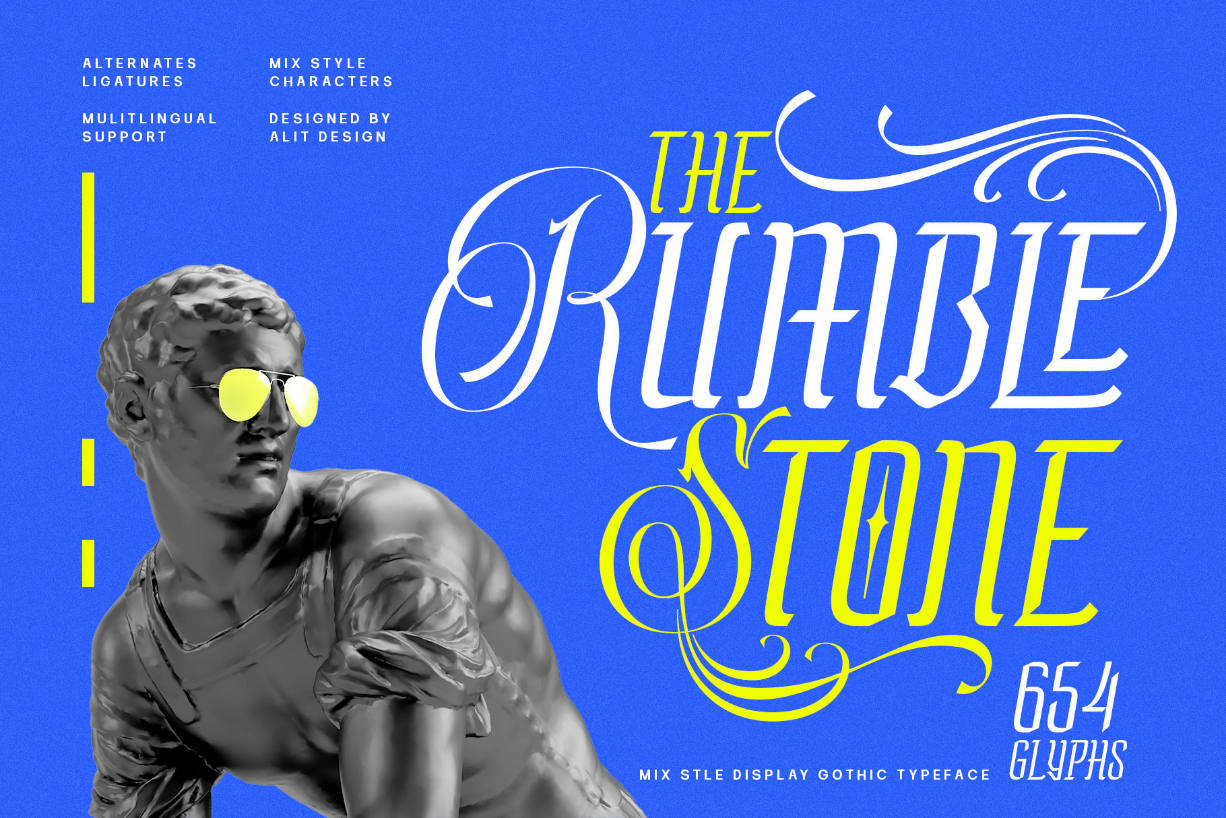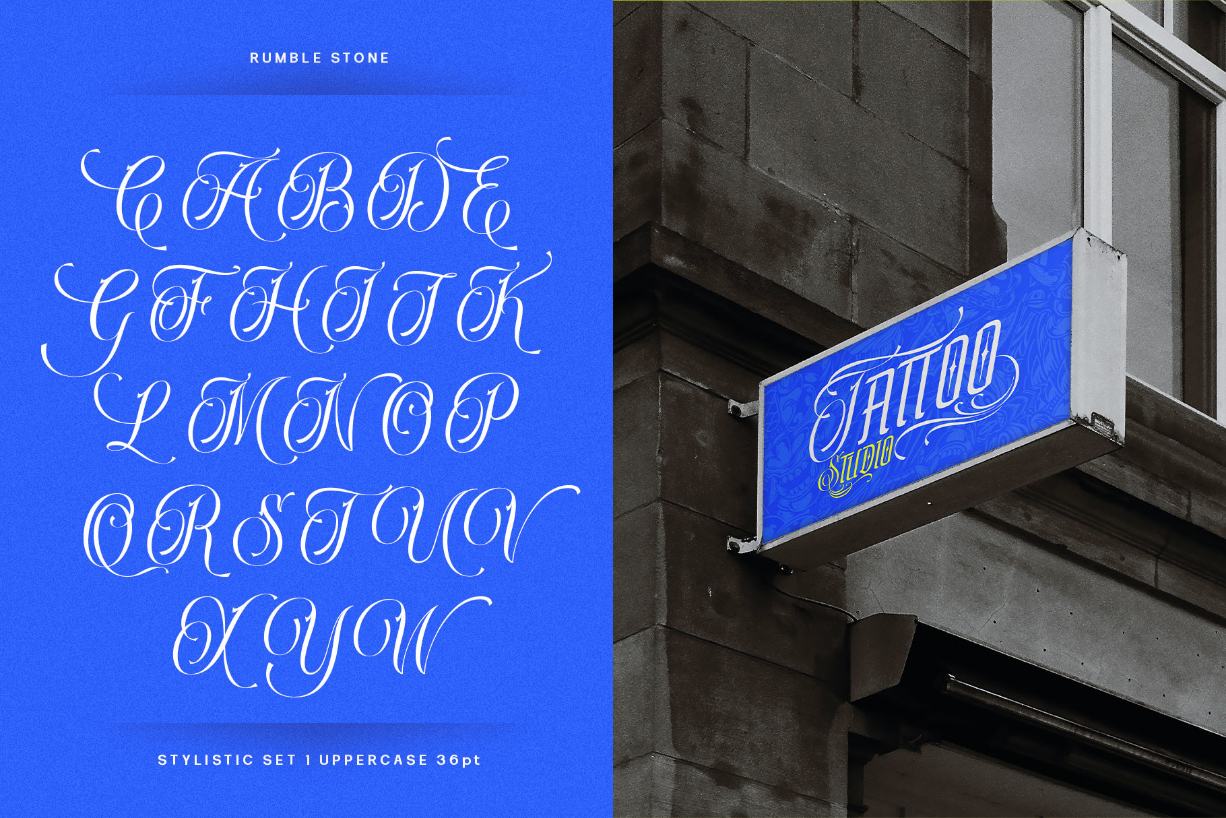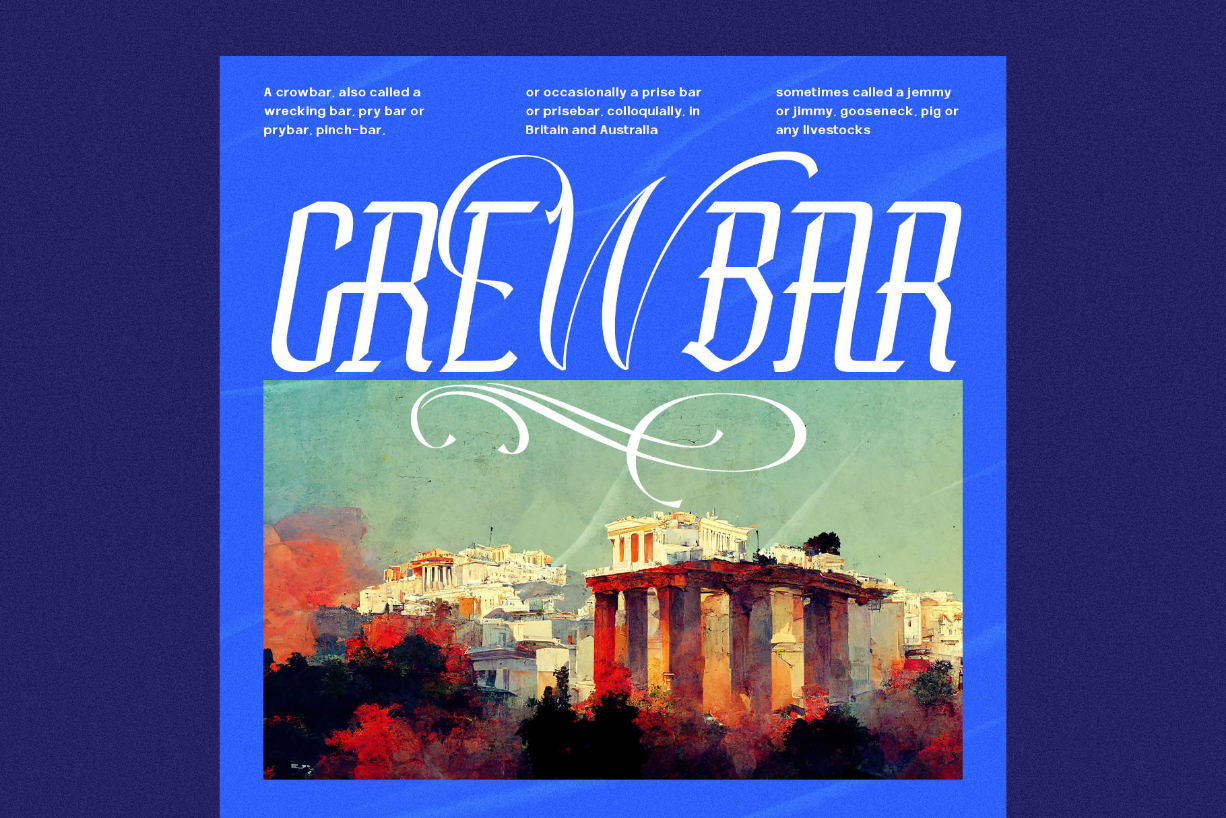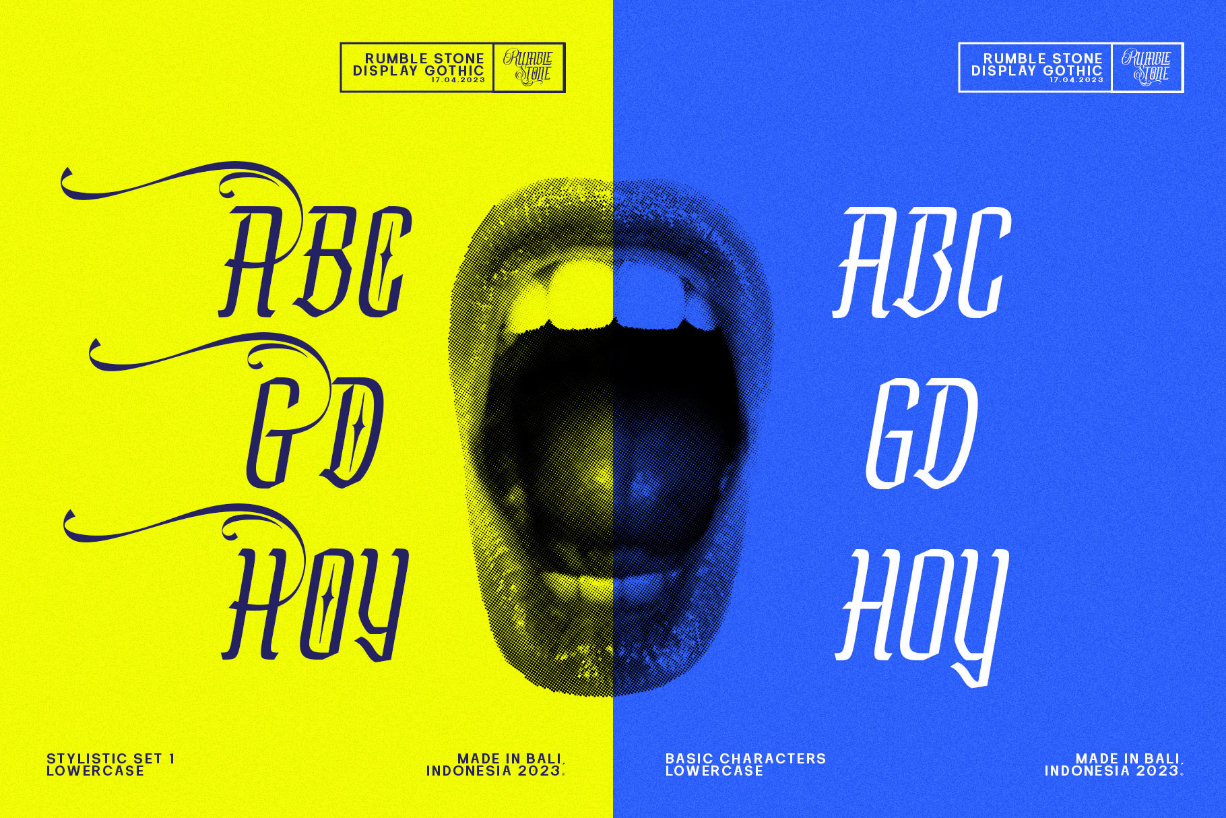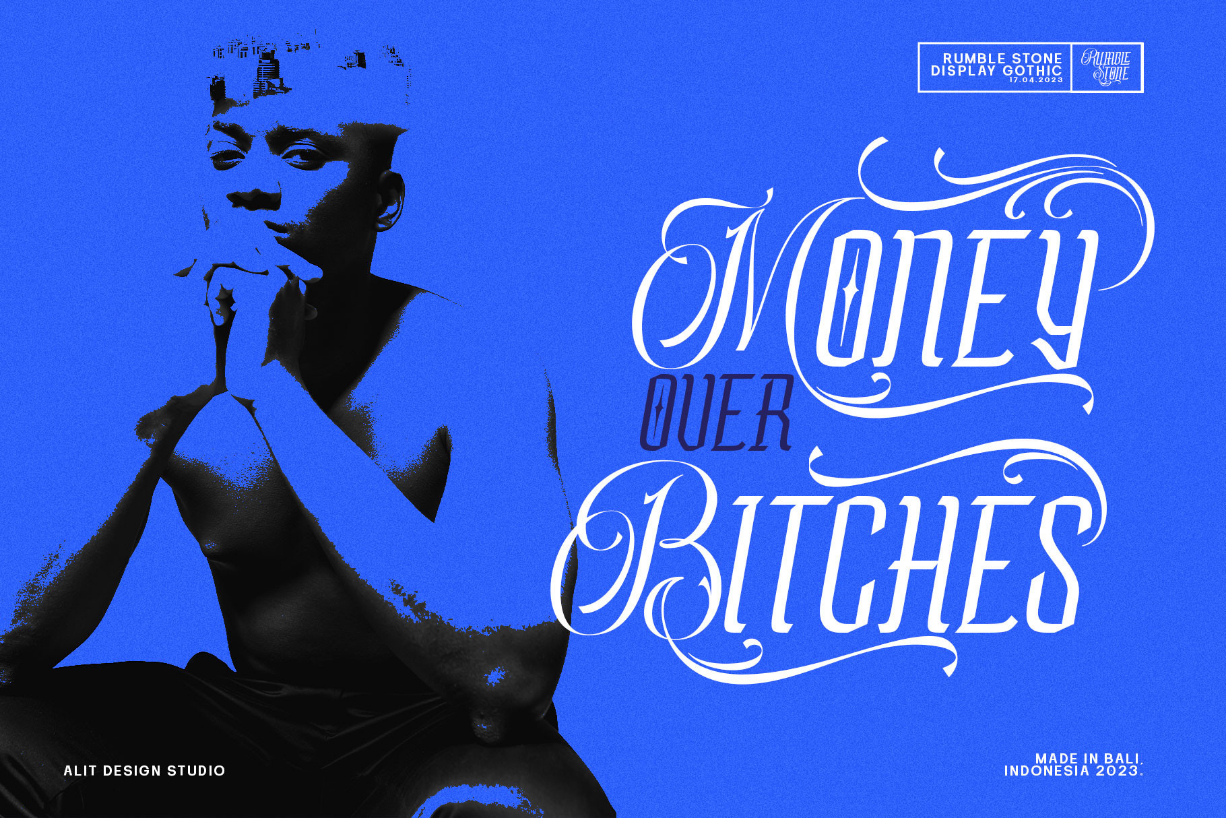
Rumble Stone Font
About Rumble Stone Font
Rumble Stone is a unique combination of blackletter and brave script styles, making it perfect for tattoo designs and clothing. Its distinct and bold appearance makes it an excellent choice for designs that require a strong and edgy look.